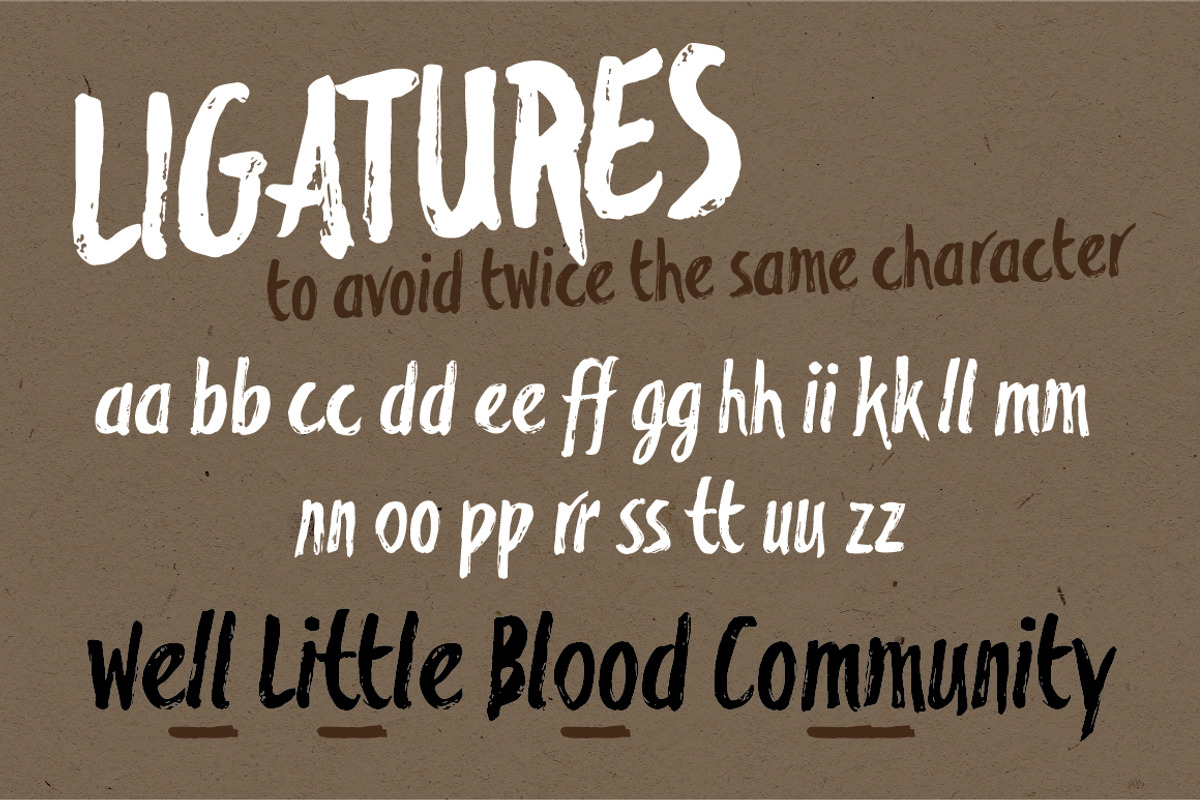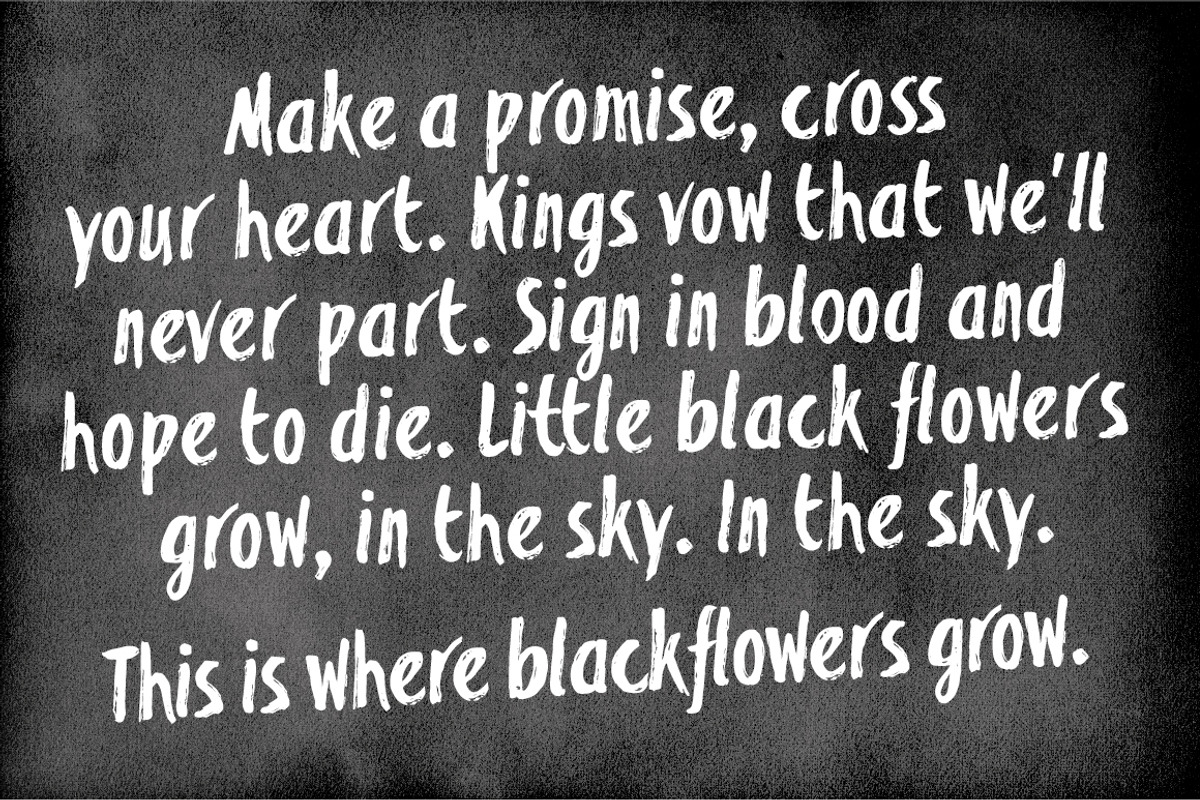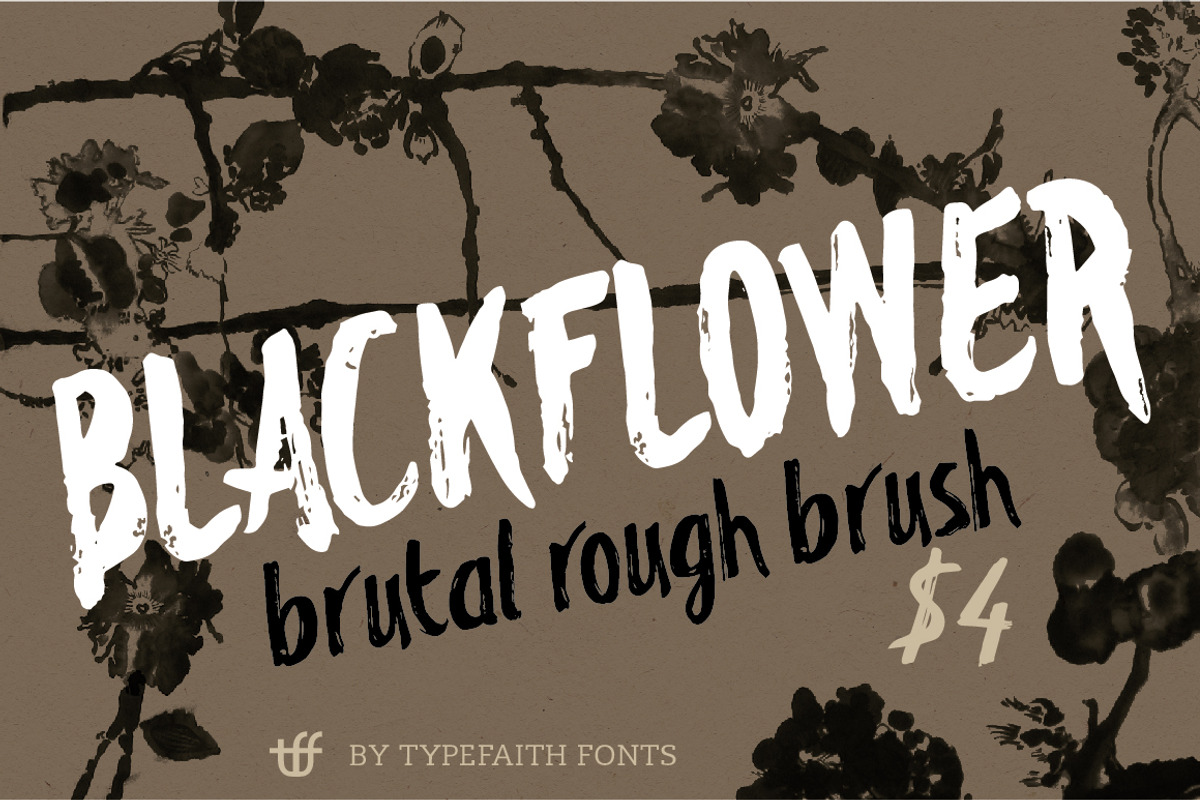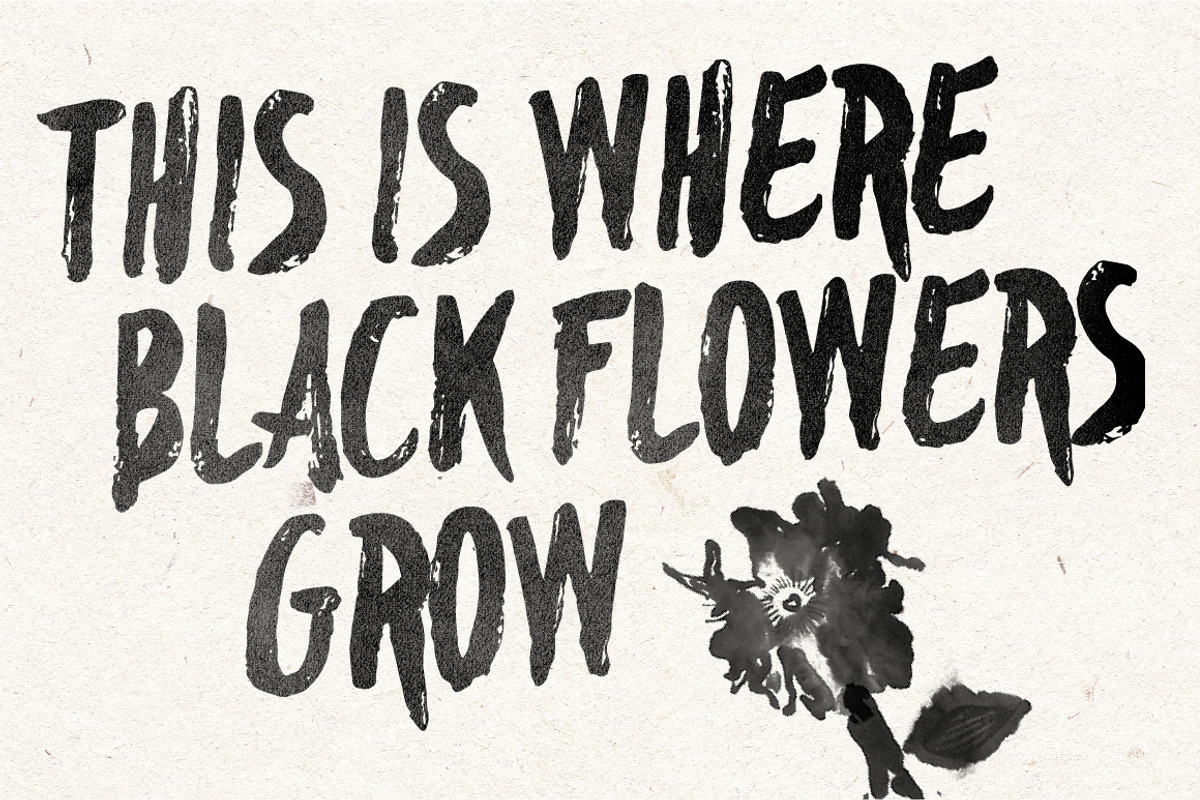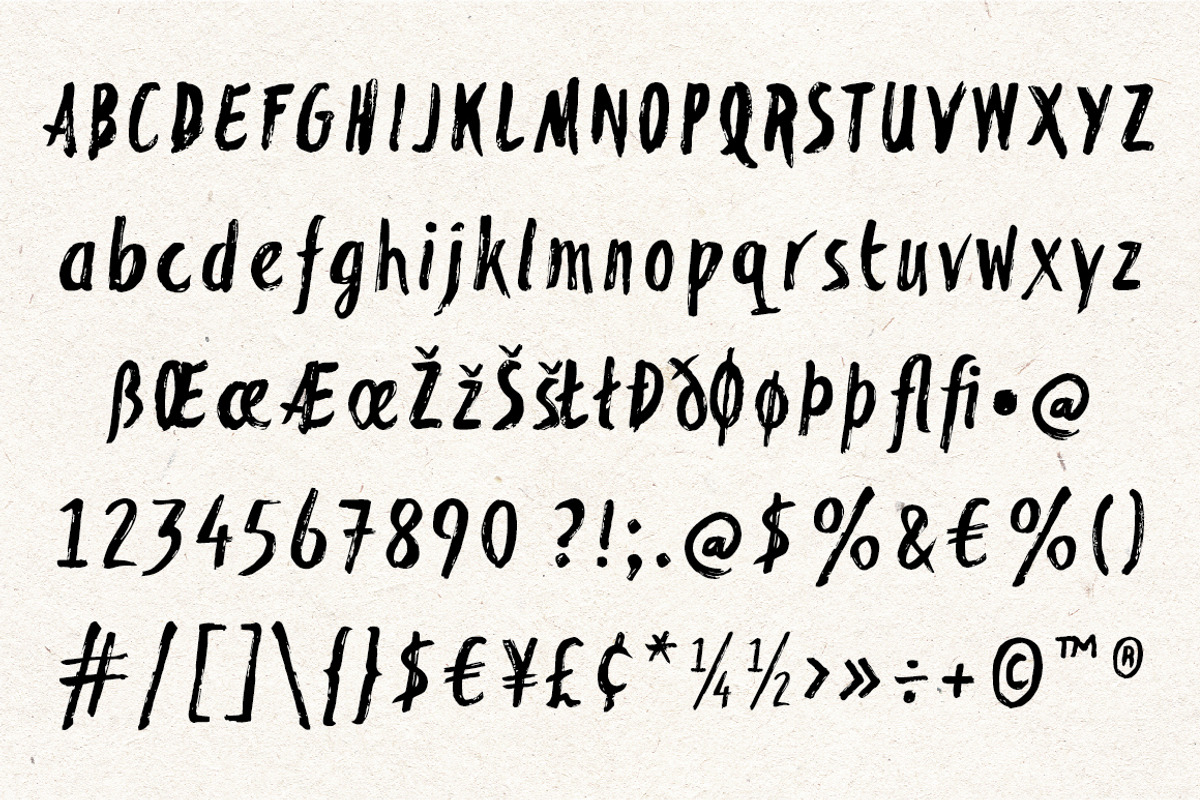
Blackflower
Blackflower by TypeFaith Fonts is a font selected for branding, posters, packaging, typography.
- It's brutal, rough and messy, with ligatures to avoid twice the same glyph.
Why Blackflower is worth a look
Blackflower by TypeFaith Fonts fits naturally into Branding, posters, packaging, typography.